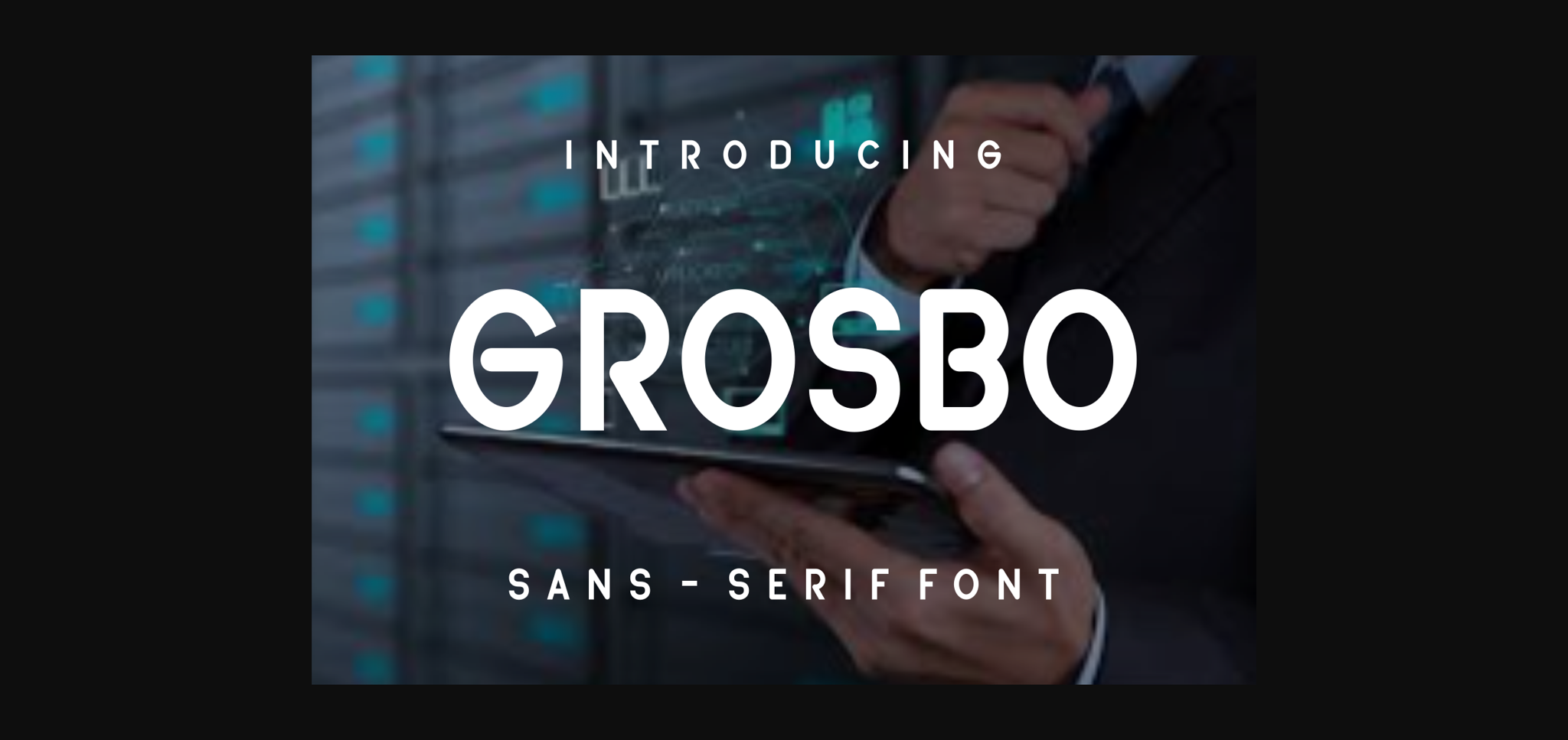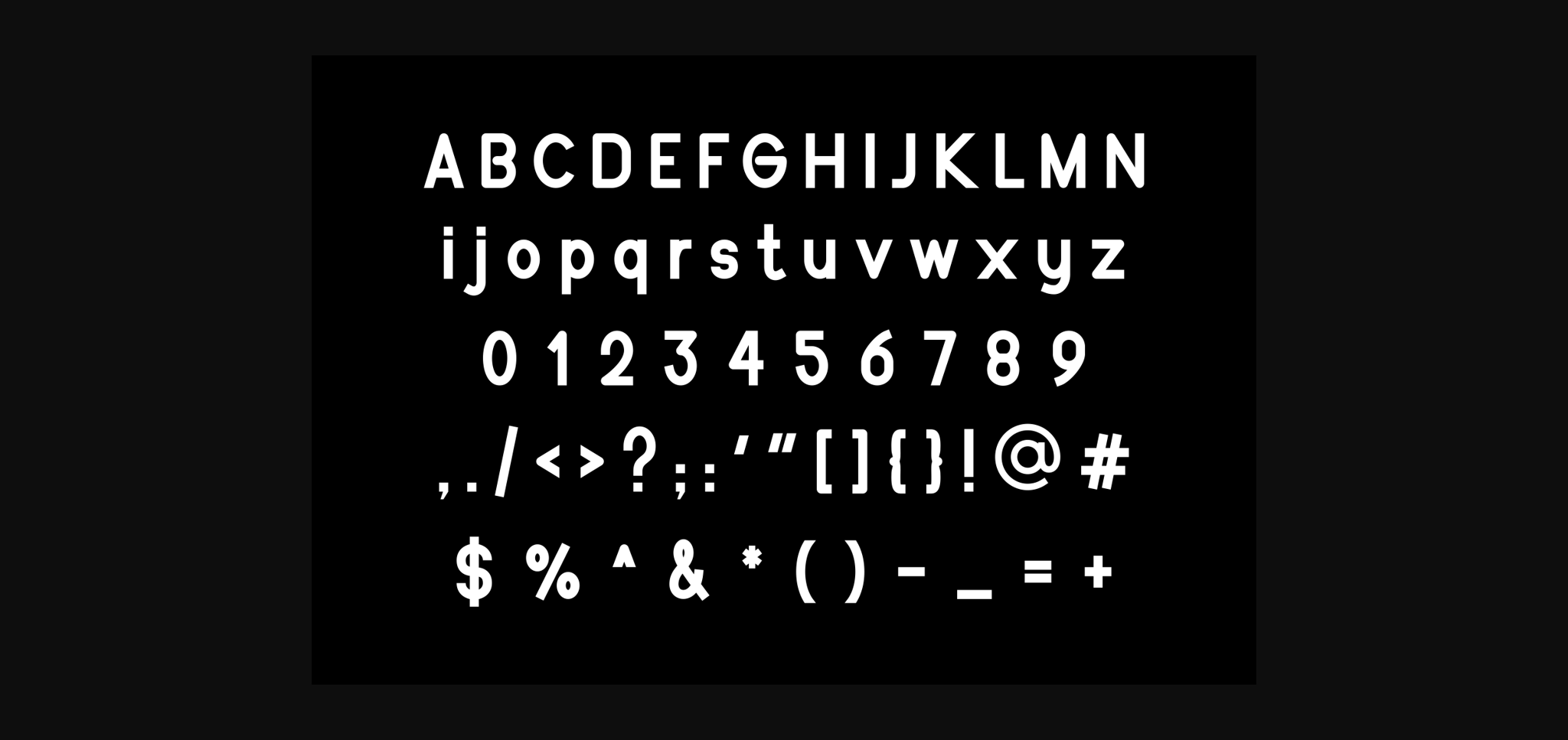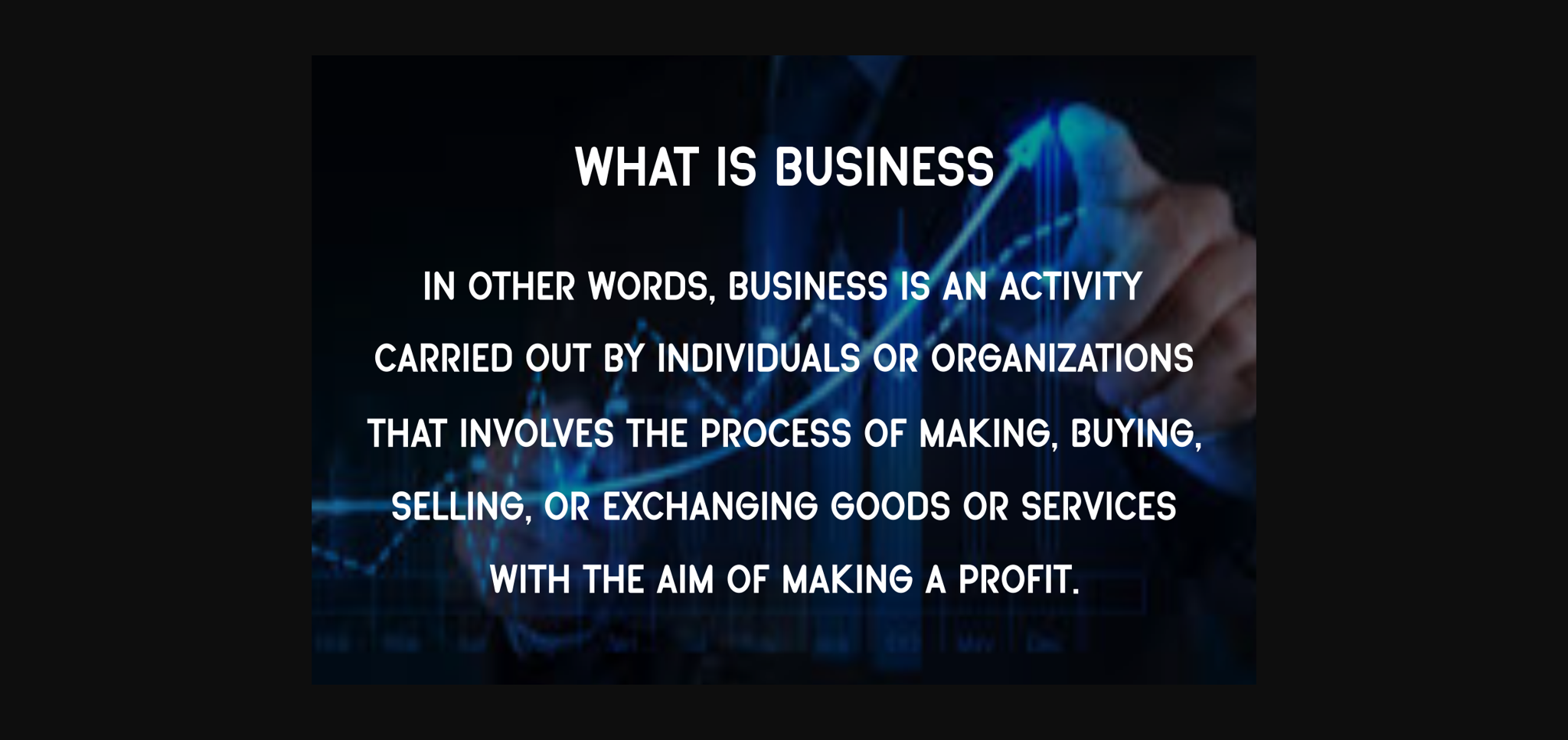
HomeSans Serif FontsGrosbo Font Sans Serif Fonts Grosbo Font FacebookXPinterestWhatsApp 1 of 5 ... Grosbo Font Poster 2... Grosbo Font Poster 3... Grosbo Font Poster 4... Grosbo Font Poster 5... About Grosbo Font Grosbo is a cool and unique sans serif font. No matter the topic, this font will be an incredible asset to your fonts’ library, as it has the potential to elevate any creation. DOWNLOAD NOW People also explored Americano Font Agreeable Font Hamster Font El Zorro Font Really Dizzy Font Anantha Signature Font Free Jump Font Yellow Dingbat Banners Font Thunder Font 432 0 TagsGrosboGrosbo Font Previous articleGuferis FontNext articleAnzeng Font LEAVE A REPLY Cancel reply Comment: Please enter your comment! Name:* Please enter your name here Email:* You have entered an incorrect email address! Please enter your email address here Website: Save my name, email, and website in this browser for the next time I comment. Personal Use Free Sellena Brush Font Personal Use Free Read more about this font Coconote Personal Use Free Read more about this font Deco Neue Wilde Personal Use Free Read more about this font Po Beef Personal Use Free Read more about this font BLOG How to Cut Any Font on Cricut: Convert a Font to SVG (Free) Turn any font into a clean SVG so it cuts crisp on Cricut - a quick 3-step workflow using a free font-to-SVG tool. Top 7 Google Fonts Alternatives for Faster and Privacy-Friendly Web Design (2025) Modern Sans-Serif Fonts That Brands Love in 2025 Where to Buy American Fonts Online in 2024